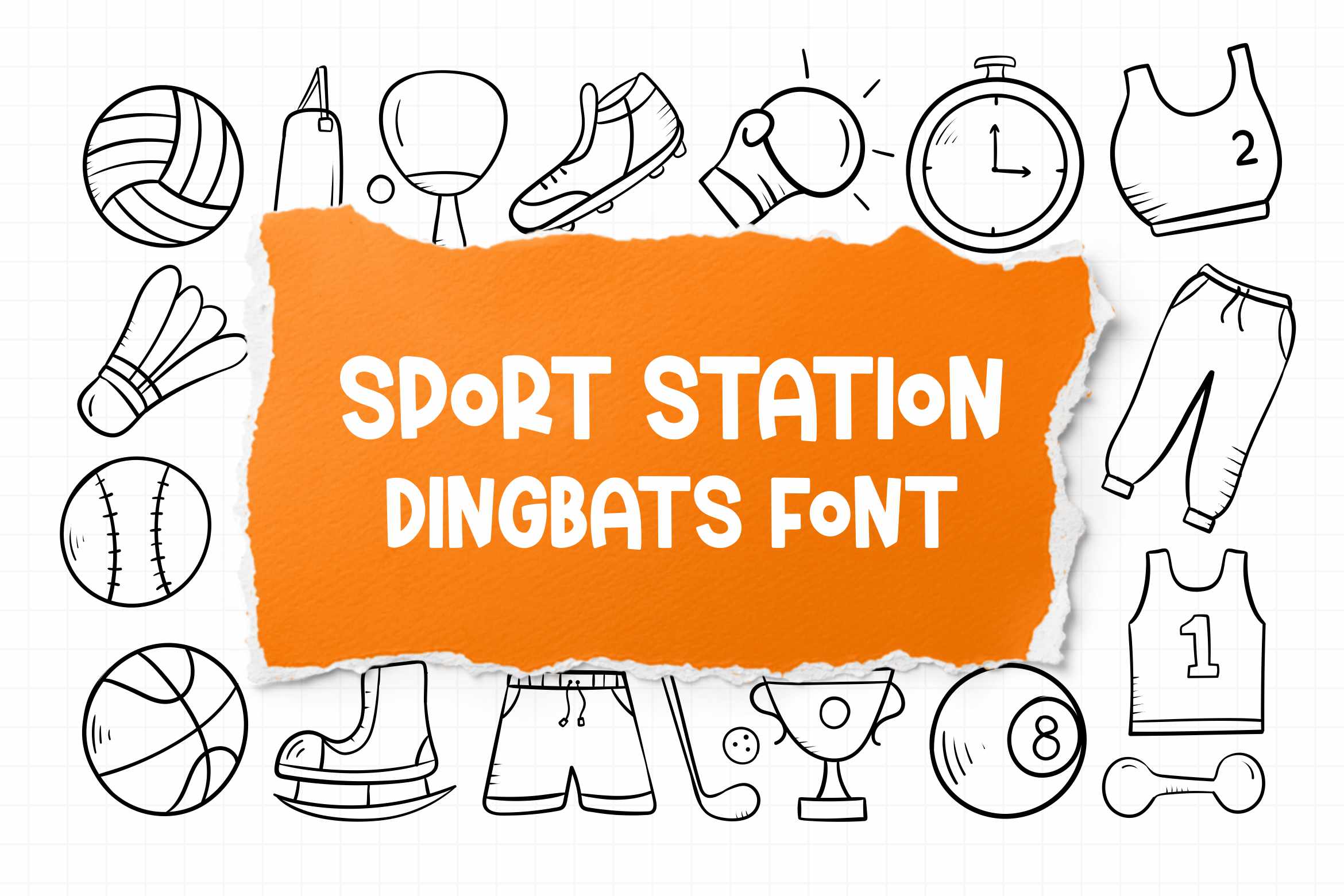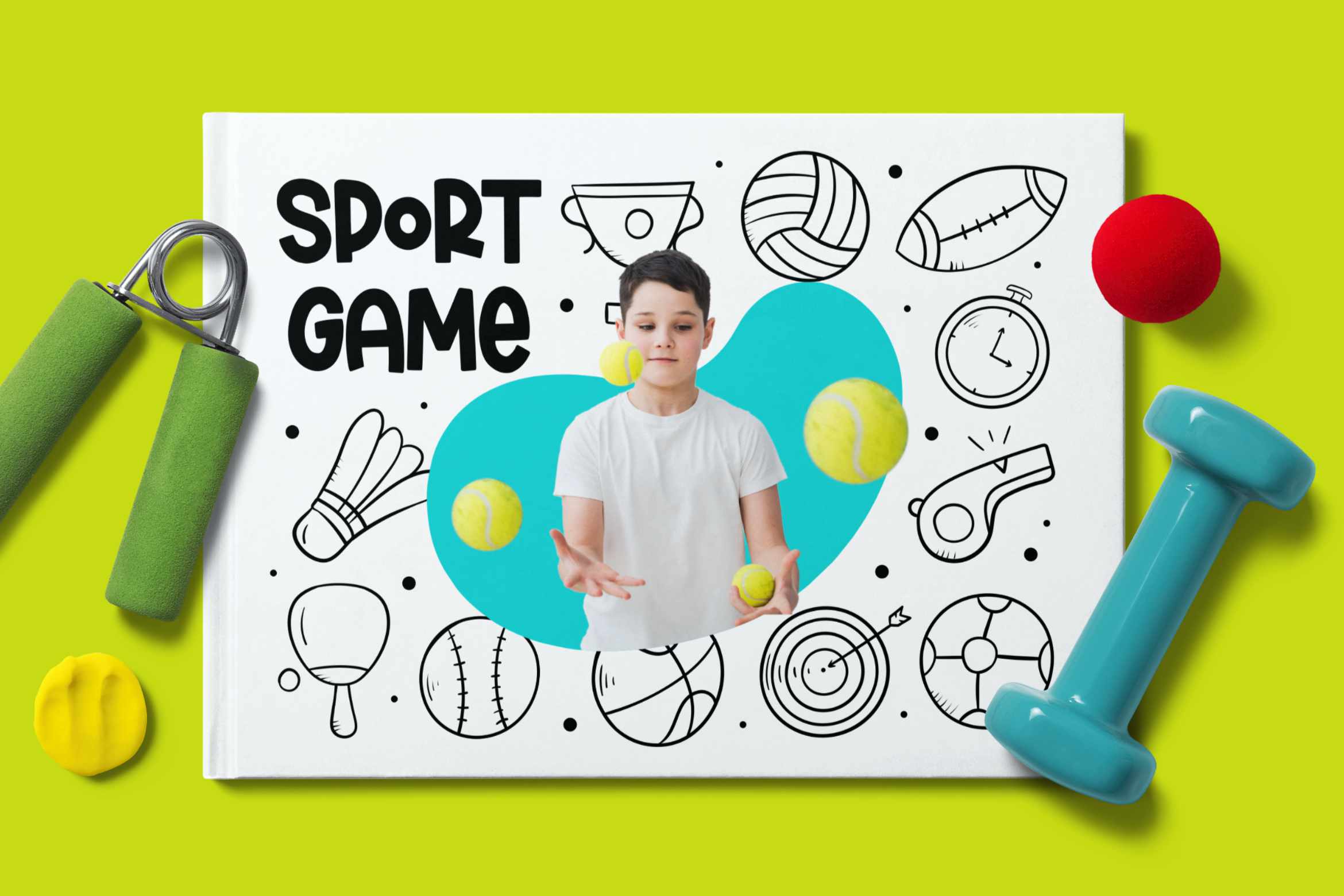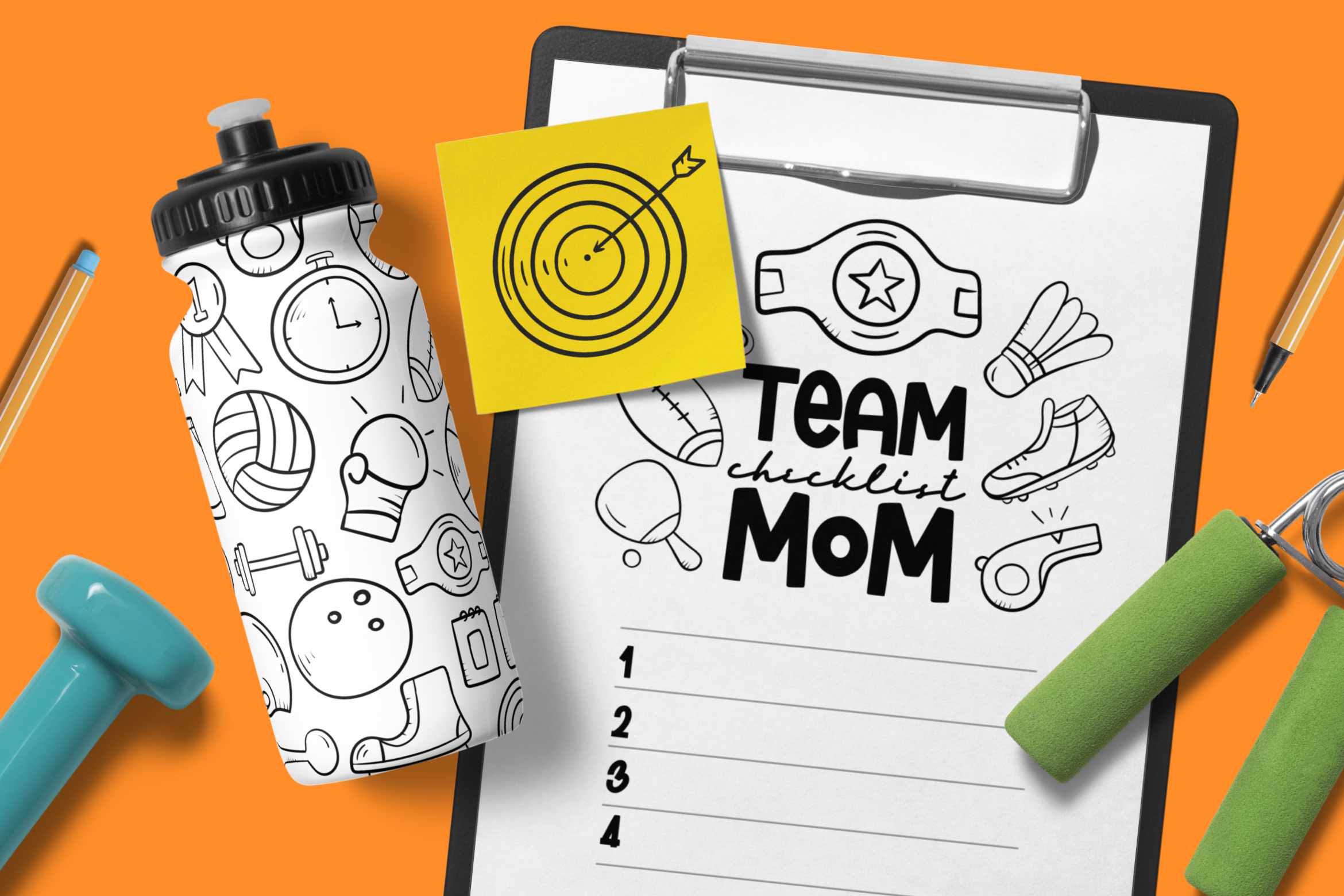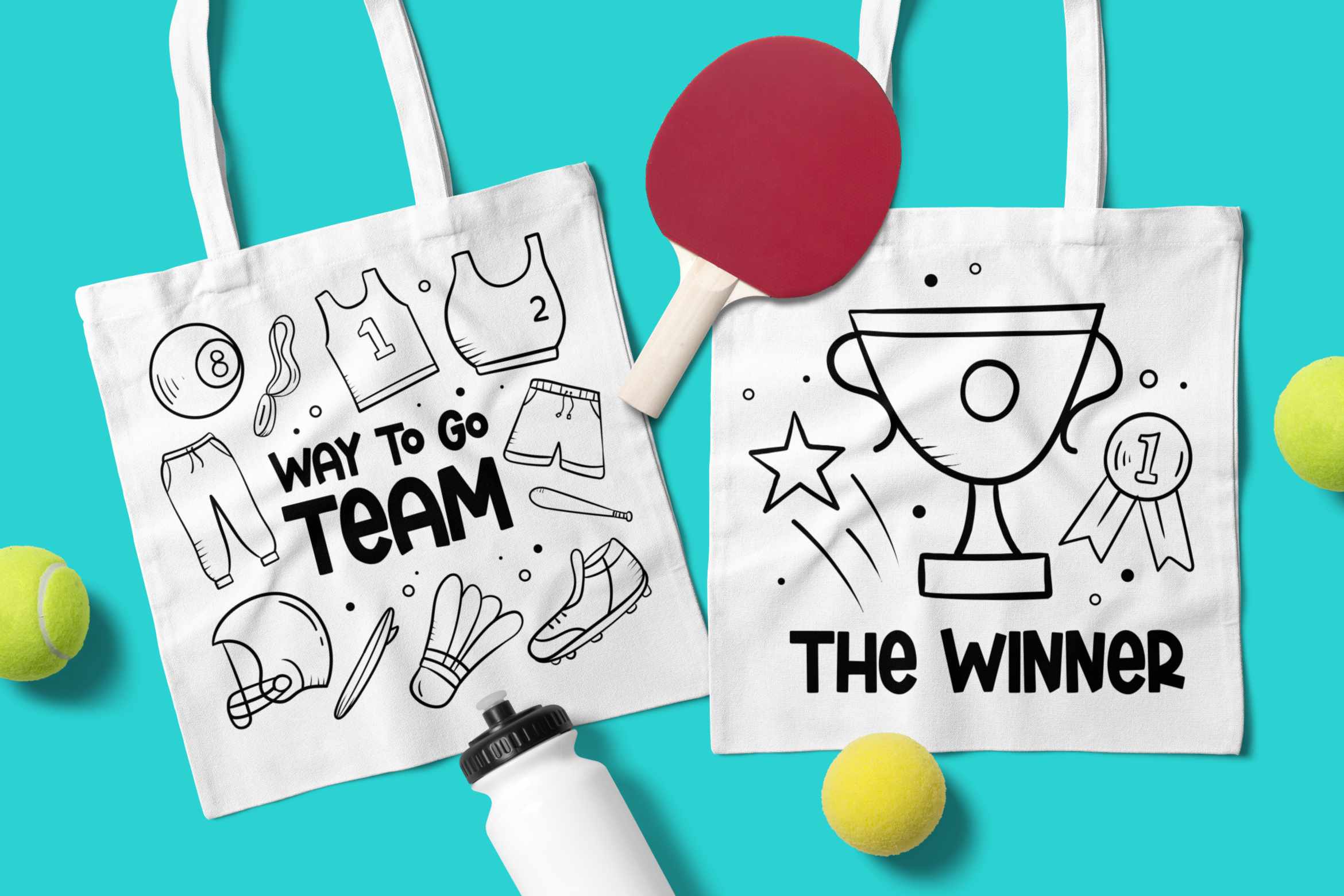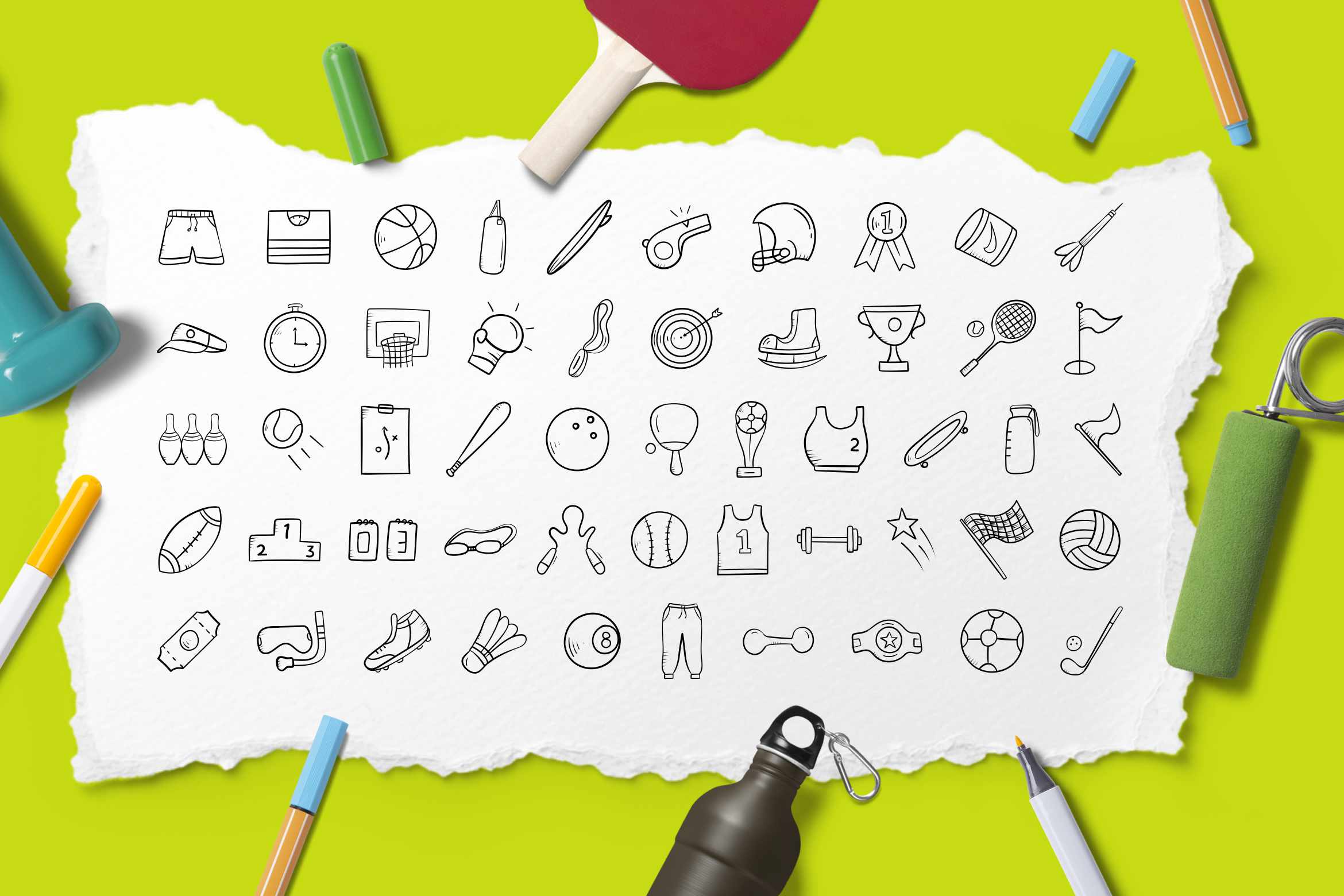
Sport Station is a dingbat font packed with playful and energetic sport-themed illustrations. Each character key reveals a different hand-drawn icon. From balls and rackets to trophies, whistles, and sportswear, making it a fun and practical choice for projects related to sports, fitness, kids’ activities, and event promotions. With its doodle-style line art, this font adds a dynamic and cheerful vibe to any design.
As a dingbat font, Sport Station allows you to easily insert scalable vector icons by simply typing on your keyboard. It’s perfect for coloring books, posters, apparel, sticker sets, and packaging. This font gives designers a quick way to access consistent, sport-inspired graphics without needing separate files or illustrations.